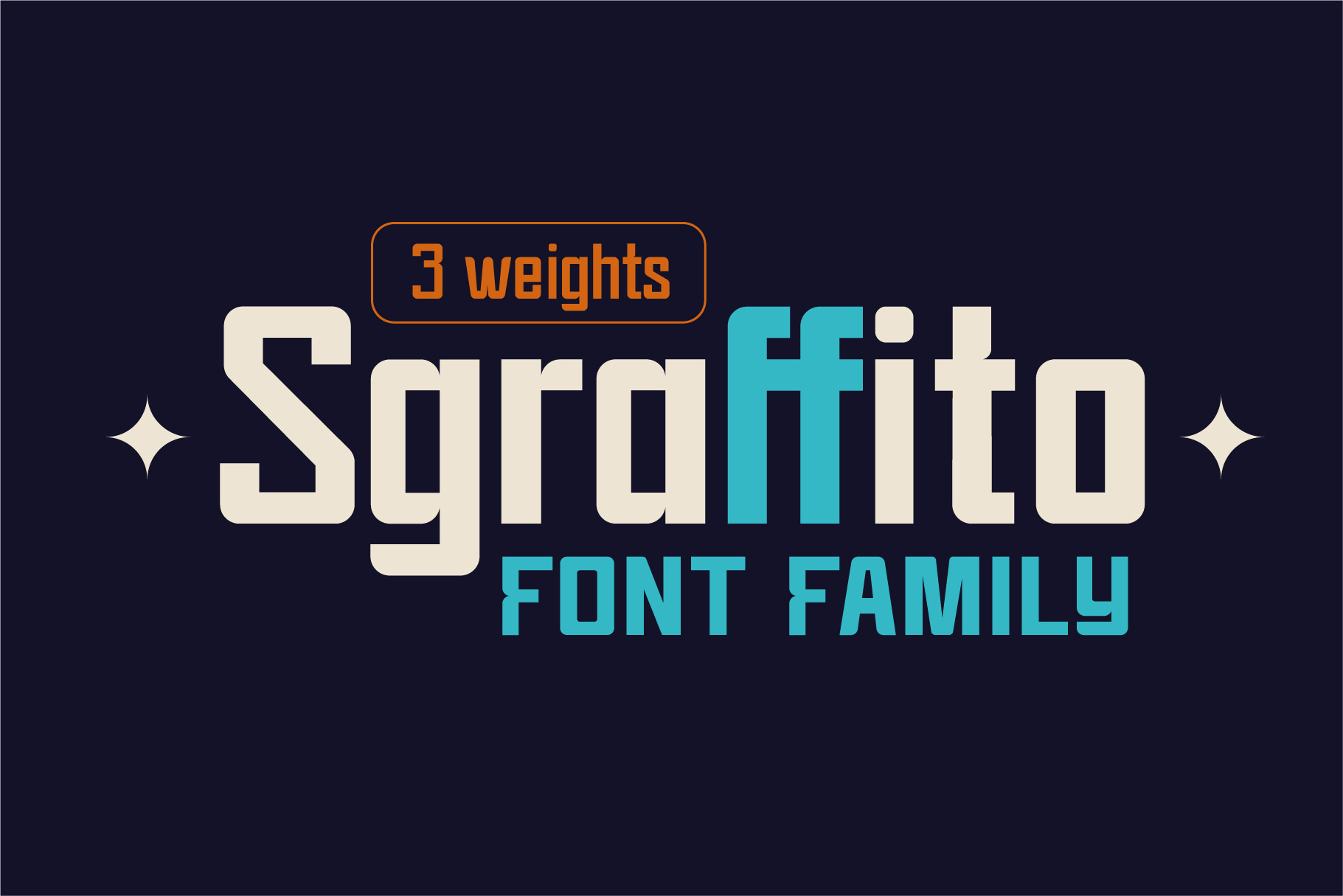
Sgraffito Display Font Family
Sgraffito Display is a geometric sans-serif typeface. It is perfect for headings, logos, posters, packaging and so much more! The font comes with full upper & lower case characters, numbers, symbols and includes the most common stylistic ligatures.
Sgraffito is a technique either of wall decor, produced by applying layers of plaster tinted in contrasting colours to a moistened surface and then scratching so as to reveal parts of the underlying layer.